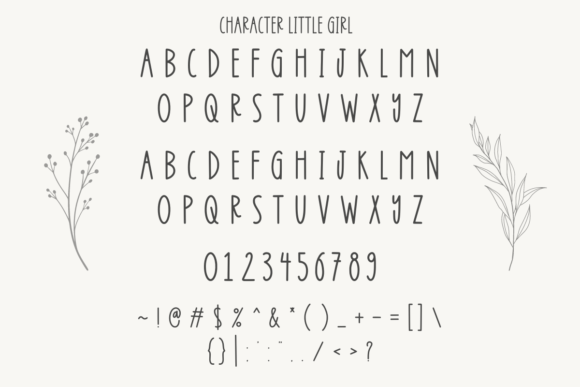
Little Girl Font
Little Girl’, a charmingly delightful and whimsical hand-drawn sans serif font. With its endearing appeal, it emerges as the go-to choice for an array of crafting wonders, memorable quotes, heartfelt greeting cards, standout t-shirt designs, cozy mugs, fashionable tote bags, and festive birthday cards. It also invokes a romantic allure, perfect for wedding themes, attention-grabbing headlines, and eloquent usage aligned to various creative explorations. A superb blend of creativity and convenience, ‘Little Girl’ truly transcends the ordinary for countless artistic endeavors.